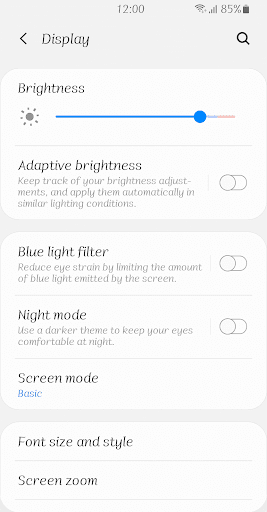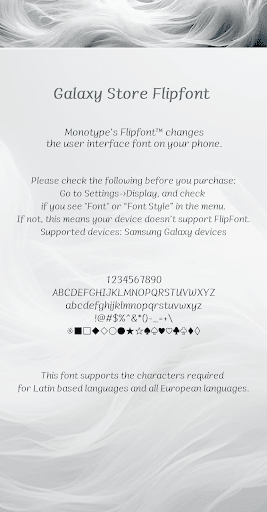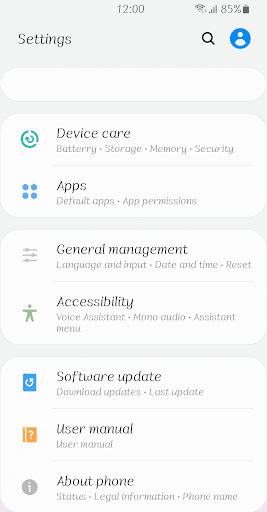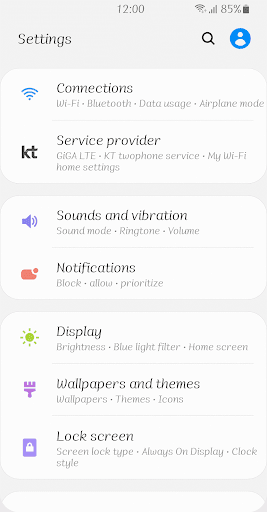
Fine Whisper
This is a handwriting-style font that feels comfortable.
You can see the change in thickness according to the movement of the strokes, and it shows a stable posture that continues smoothly.
You are falling for my charm like a soft whisper.
When I look at you, I can't help but smile.
Your eyes that are slowly falling in, come a little closer to me.
Now I want to tell you my hidden feelings.
I will whisper to you sweetly and gently. I love you...